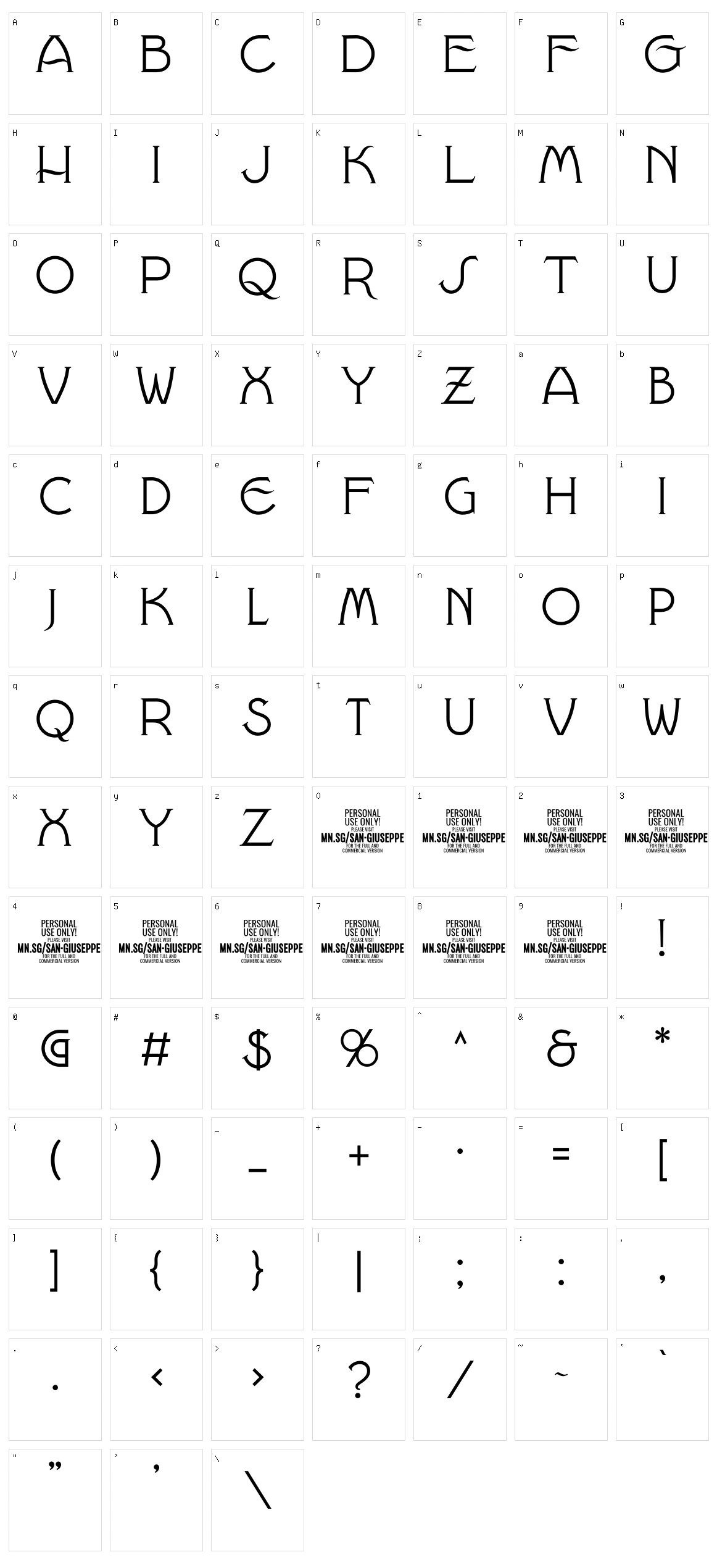
San Giuseppe is a serif font with finesse and unique charm.
Inspired by the romantic, ornate style of the Victorian era and the bold, captivating geometry of Art Deco, San Giuseppe is the perfect blend of neo-classic and vintage aesthetics. This serif font family is designed to infuse your work with an air of grace and refinement that is sure to leave a lasting impression.
Ideal for wine labels, luxury branding and high-end packaging, San Giuseppe is an all-capitals font, featuring a stunning array of alternate characters that allow you to create a truly bespoke typographical experience. With its fine, intricate serifs and delicate, artistic letterforms, this font is a testament to the beauty and craftsmanship of yesteryear, created for a modern setting.
The San Giuseppe font family consists of six high-quality styles:
In addition to the Regular font, it is provided in both Bold and Light, and each of the weights as Italic.
The font is built with advanced OpenType functionality and has a guaranteed top-notch quality, containing stylistic and contextual alternates, ligatures and more features; all to give you full control and customizability.
It has extensive lingual support, covering all Latin-based languages, from Northern Europe to South Africa, from America to South-East Asia.
It contains all characters and symbols you'll ever need, including all punctuation and numbers.